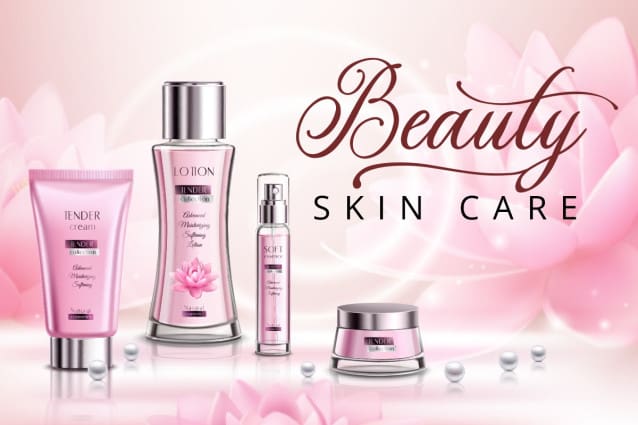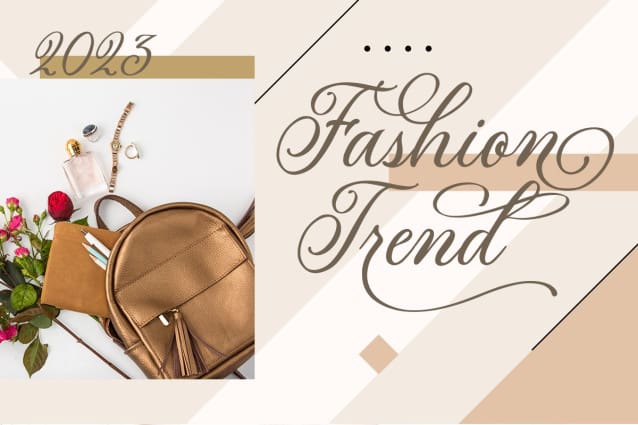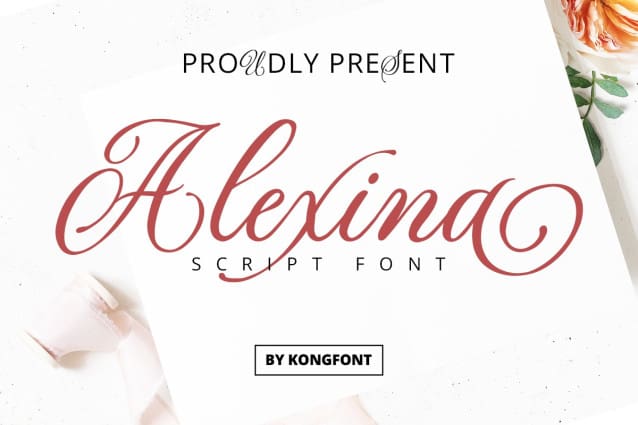
Alexina Font
Alexina Font – Classy Script font is a combination of modern fonts and handwritten fonts with an elegant and likable appearance. A brush pen is used to create the font, so the beauty shines through and is real.
The brush used in this font is a medium-tipped brush, so the resulting strokes are long, thin, curved, and continuous. This type of font is the best font to use at formal events like weddings, graduation days, or gender parties and baby showers. You can also use it on invitations, letters, souvenirs, or thank you cards. Alexina Font – Classy Script Font will impart a simple yet elegant appeal to all who see it. From the explanation of these characteristics and uses, the Alexina Font – Classy Script Font is included in the aesthetics of the font.
For formal occasions like the art exhibition, you can use our Alexina Font – Classy Script Font on show titles, team t-shirts, signage, and other items. This font can be applied as a digital font or print font. Combined with the right theme, supporting images, and atmosphere, the beauty of this font will radiate like sunlight that illuminates a room. Alexina Font – Classy Script Font is the best font for branding fashion and beauty products. It can be placed on packaging, the web, brand tags, and magazine covers.